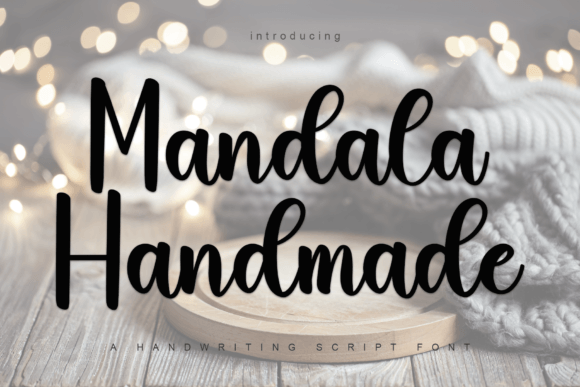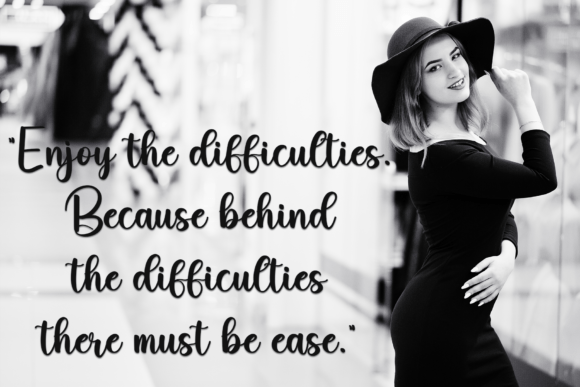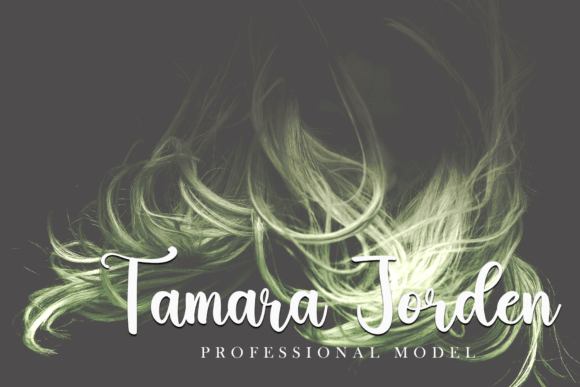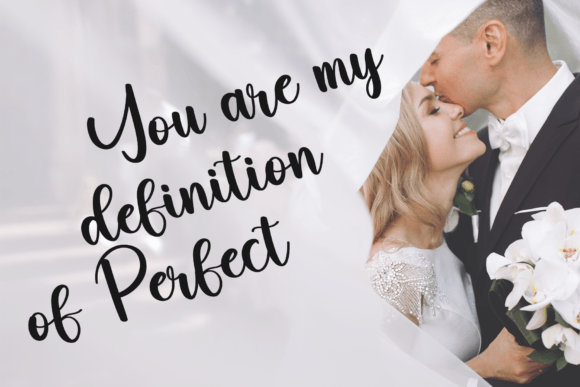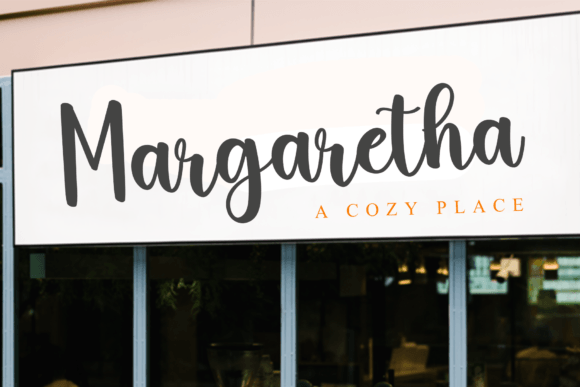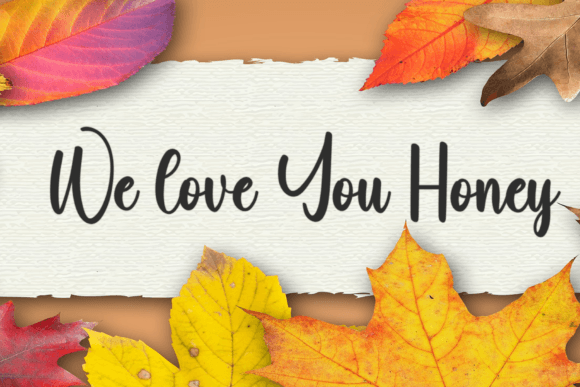
Mandala Handmade Font
“Mandala Handmade” is a stunningly beautiful handwritten font that possesses the unique ability to make your creative endeavors truly stand out. With its graceful and sinuous lines, this font adds an elegant touch that can elevate a wide range of design projects. Whether you’re working on product packaging, branding, magazine covers, social media graphics, wedding materials, or simply need captivating text overlaying a background, “Mandala Handmade” is the ideal choice.
The allure of “Mandala Handmade” lies in its intricate and meticulously crafted appearance. Each letter exudes a sense of artistry and sophistication, making it perfect for projects that demand an element of visual finesse. Imagine using “Mandala Handmade” for a luxury product’s packaging, where the font itself becomes a statement of quality and style.
For branding projects, this font can be a game-changer. It imparts a distinctive and memorable look to your brand identity, ensuring that it stands out in a crowded marketplace. Whether it’s a logo, business card, or website header, “Mandala Handmade” infuses your brand with an aura of elegance and creativity.
Furthermore, “Mandala Handmade” is exceptionally versatile. Its curvy lines and intricate details allow it to seamlessly adapt to various design contexts, from the cover of a fashion magazine to a romantic wedding invitation.
In addition, the font’s readability remains intact, ensuring that your message remains clear and accessible, even in artistic or complex designs. This is especially valuable when conveying essential information or brand messaging.
In conclusion, “Mandala Handmade” is not just a font; it’s a design asset that has the power to transform your creative work. Its elegance and versatility make it suitable for a wide range of applications, and its ability to convey a sense of artistry and sophistication sets it apart. With “Mandala Handmade” at your disposal, your design projects will possess a unique and captivating appeal that leaves a lasting impression on your audience.